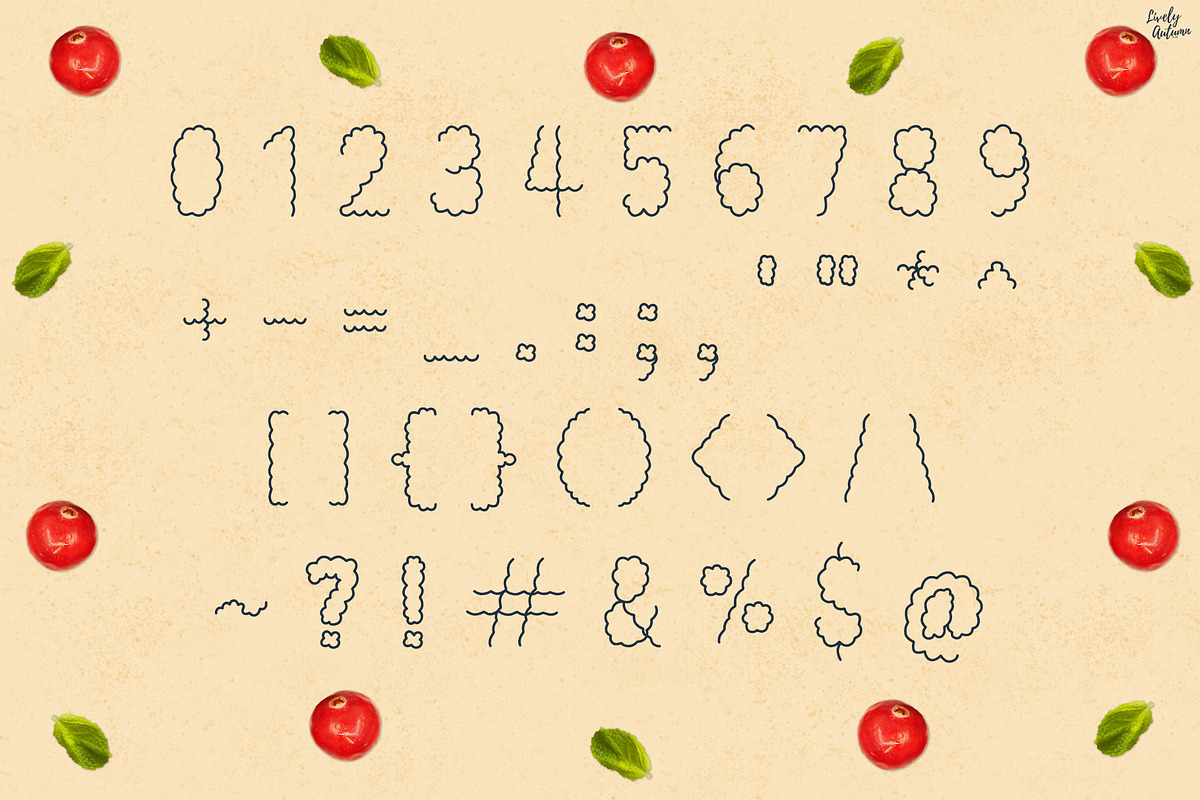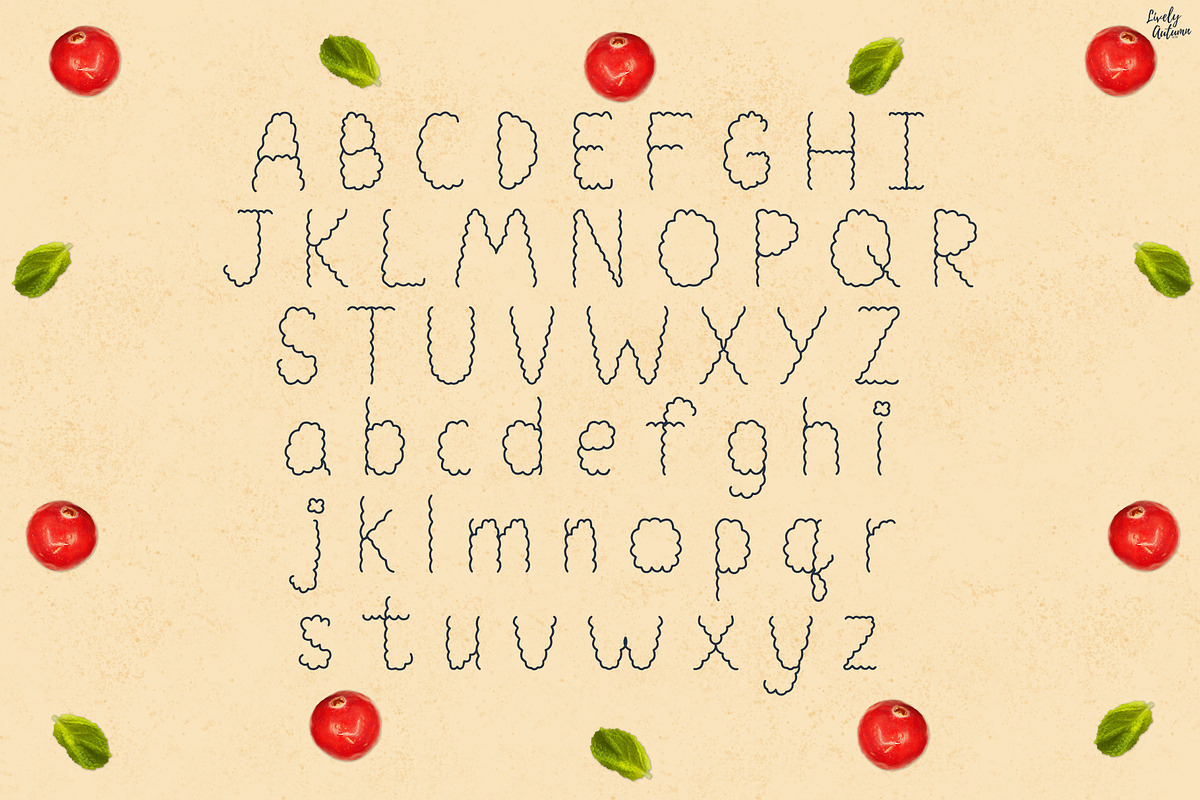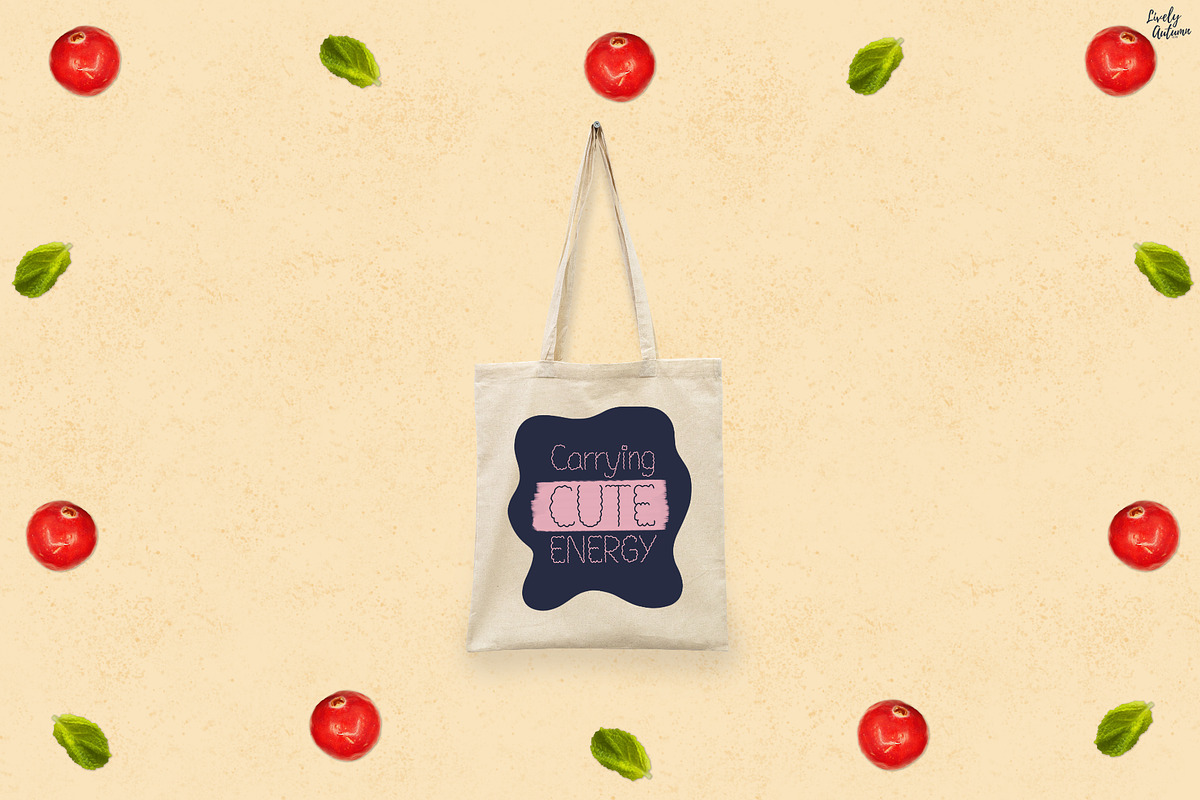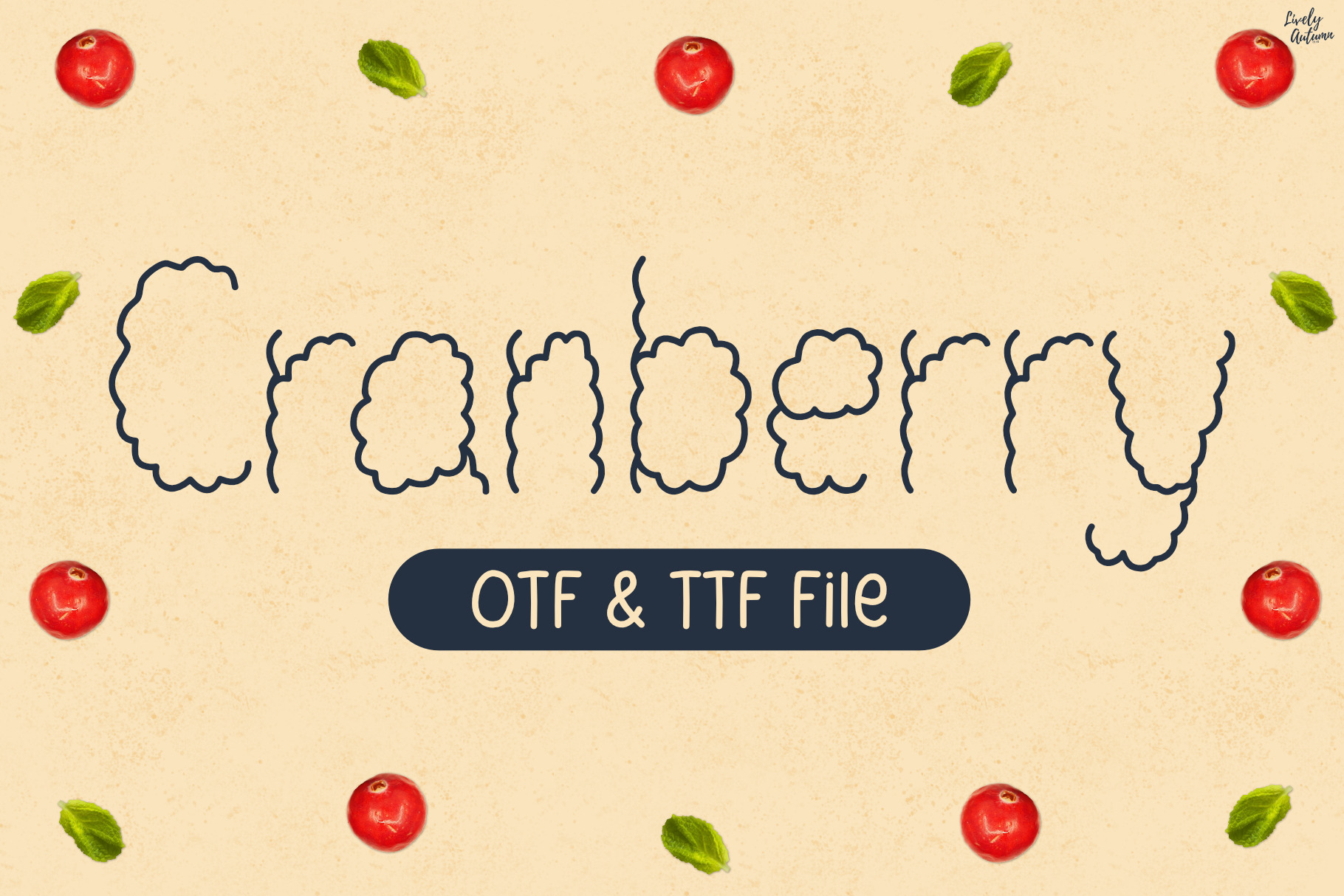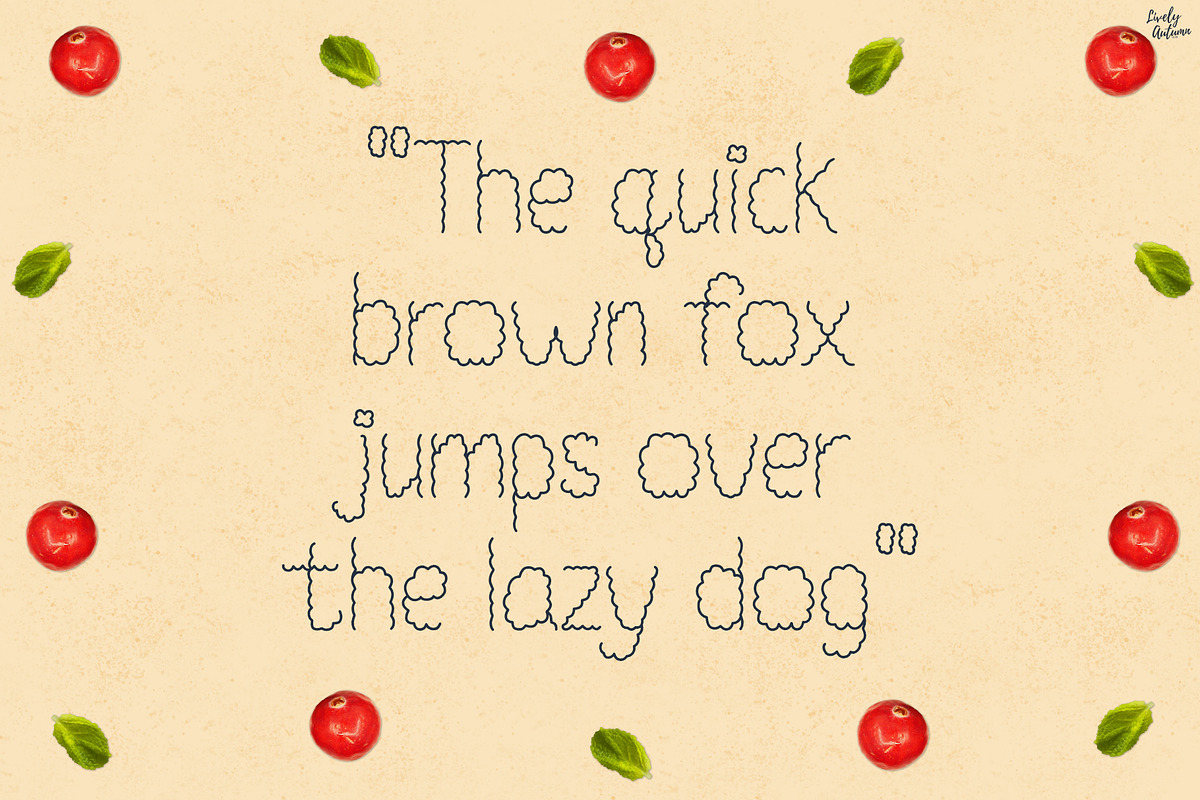
Cranberry | playful handwritten font
Cranberry is a playful handwritten font with wavy lines. Perfect for your personal projects and various projects. From invitations to posters, social media graphics, journals, stickers and much more.